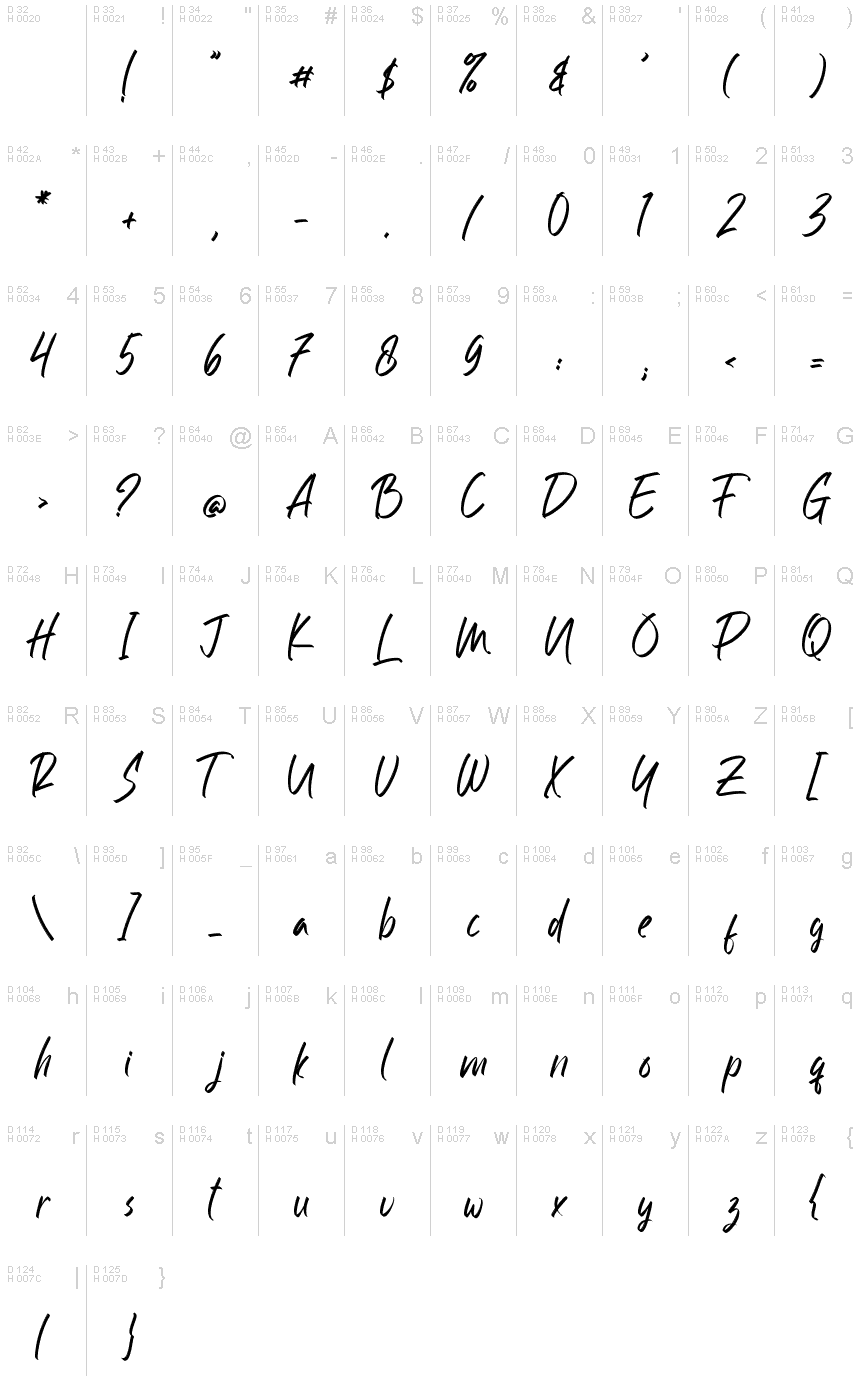
Olive _DEMO
Olive! A handwritten script font. Olive font is perfect for branding, logotype, apparel, T-shirt, Hoodie, product packaging, quotes, flyer, poster, etc.
1. Uppercase and lowercase characters
2. Supports international languages
3. Numerals, punctuations, ligatures.
6. Multilingual support.